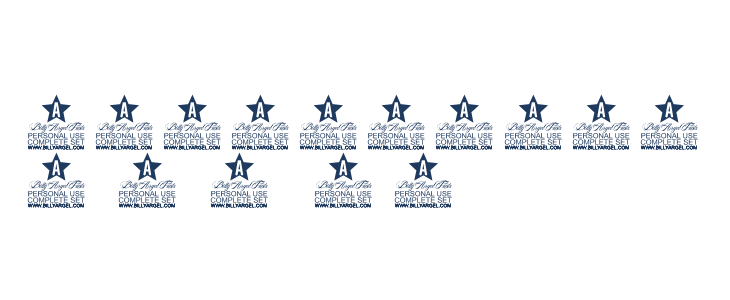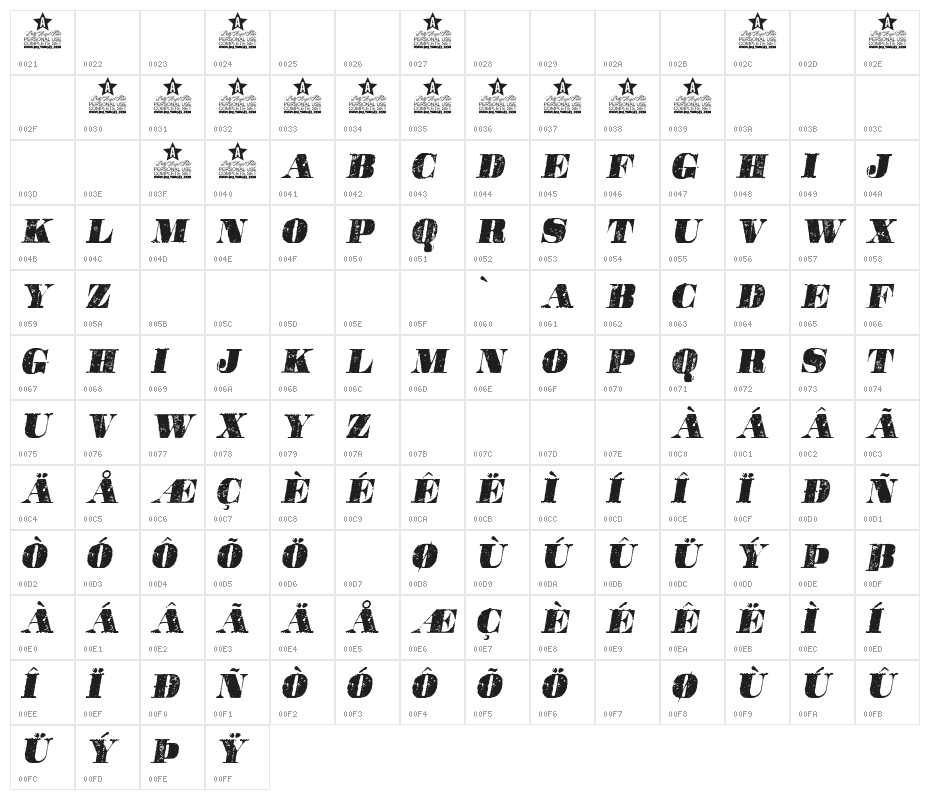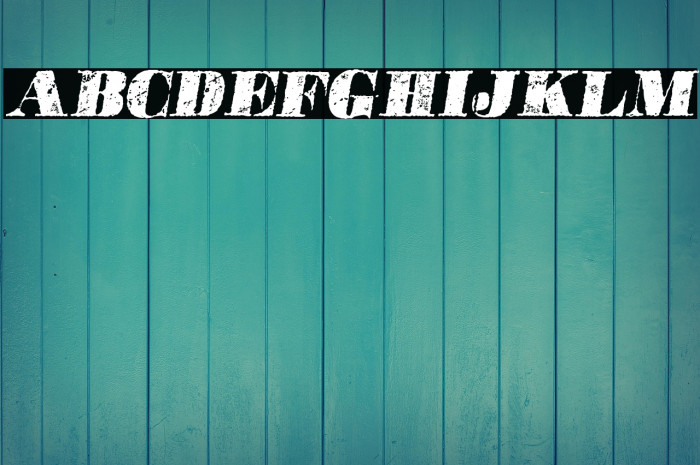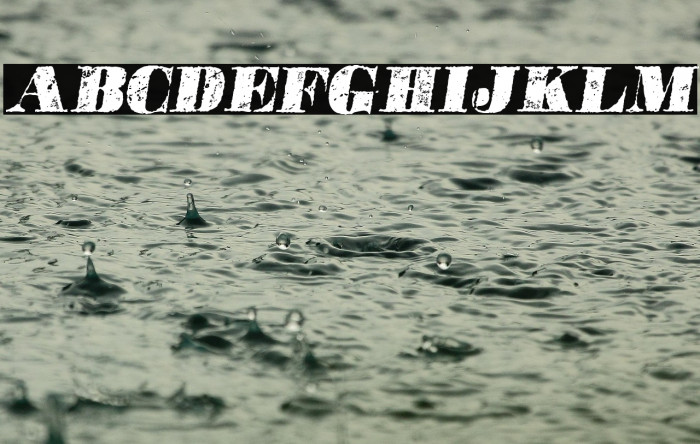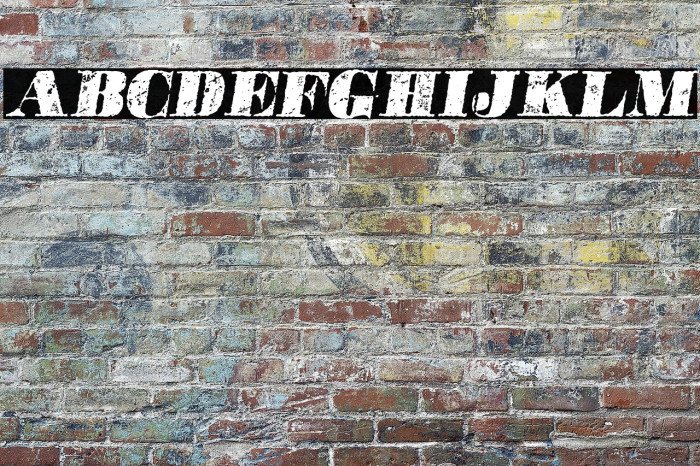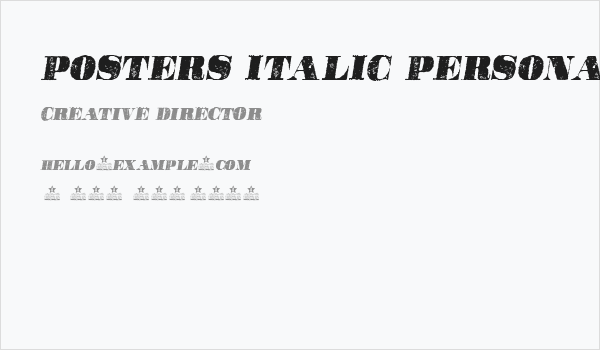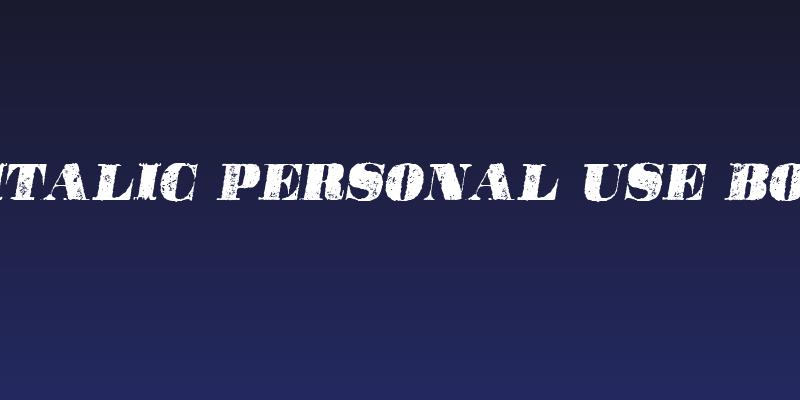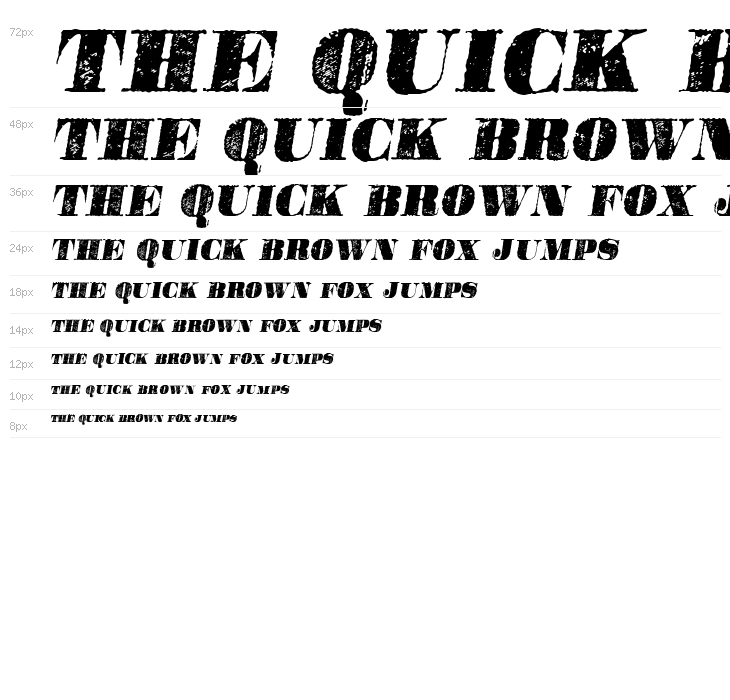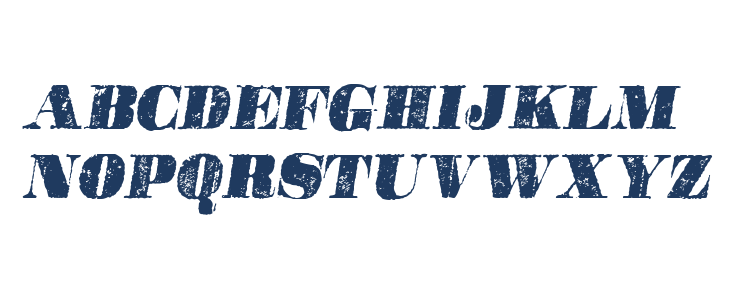
POSTERS ITALIC PERSONAL USE Bold Italic Font
POSTERS ITALIC PERSONAL USE Bold Italic Description
This font features a bold and italicized style with a distressed, textured appearance, giving it a rugged and vintage feel. The uppercase letters are prominently displayed, showcasing a strong presence with their thick strokes and uneven edges. The texture adds a unique character, making each letter appear slightly different, as if weathered over time. This font is ideal for creating impactful designs that require a bold statement, such as posters, headlines, or branding materials. Its distinctive style captures attention and conveys a sense of strength and authenticity.
| Use Case | Headlines, Posters, Branding |
| Proposed Projects | Ideal for posters, headlines, branding, and any design needing a bold, vintage look. |